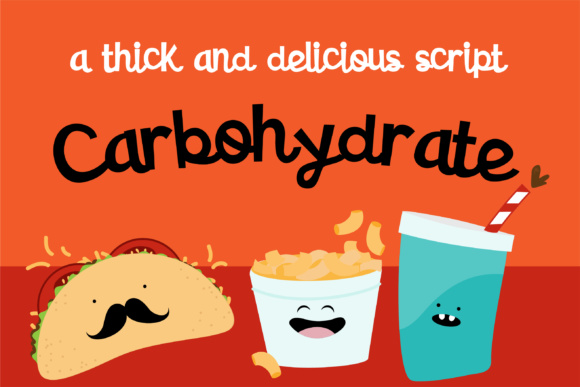
Introducing Carbohydrate Font: A Whimsical Cursive Delight
The world of typography is vast and exciting, with numerous font styles to choose from, each with its unique character and personality. Among these, the Carbohydrate font stands out as a whimsical cursive font that embodies fun and bold quasi-script lettering. In this article, we’ll delve into the details of the Carbohydrate font, exploring its features, uses, and the creative possibilities it offers.
What is Carbohydrate Font?
The Carbohydrate font is a type of cursive font that blends the elegance of traditional script fonts with a playful, modern twist. Its letters are designed to be bold and eye-catching, making it perfect for projects that require a touch of whimsy and personality. The font’s quasi-script style means it doesn’t follow the strict rules of traditional cursive writing, resulting in a more relaxed, friendly appearance.
Key Features of Carbohydrate Font
- Whimsical Design: The Carbohydrate font boasts a unique, hand-drawn design that gives it a personal and approachable feel.
- Bold Lettering: The font features bold, chunky letters that are sure to grab attention.
- Quasi-Script Style: Its quasi-script style strikes a balance between traditional cursive and modern typography.
- Fun and Playful: The overall design of the Carbohydrate font is fun and playful, making it ideal for creative projects.
Uses of Carbohydrate Font
The versatility of the Carbohydrate font makes it suitable for a wide range of applications. Here are some of the ways you can use this delightful font:
- Branding and Logo Design: The bold, eye-catching letters of the Carbohydrate font make it an excellent choice for branding and logo design, especially for businesses that want to convey a sense of fun and creativity.
- Invitations and Event Materials: Whether you’re designing wedding invitations, party flyers, or event posters, the Carbohydrate font can add a touch of whimsy and excitement.
- Packaging Design: The font’s playful design makes it perfect for product packaging, particularly for brands that offer lifestyle, fashion, or gourmet products.
- Digital Media: Use the Carbohydrate font in social media graphics, blog headers, and website designs to create a friendly and approachable online presence.
Tips for Using Carbohydrate Font Effectively
To get the most out of the Carbohydrate font, consider the following tips:
- Pair with Simple Fonts: For optimal readability, pair the Carbohydrate font with simpler fonts for body text or secondary headings.
- Use in Moderation: While the Carbohydrate font is eye-catching, using it in moderation can prevent your design from looking cluttered or overwhelming.
- Experiment with Colors: Don’t be afraid to experiment with different colors to find the perfect match for your design and brand identity.
- Consider Font Size: The bold nature of the Carbohydrate font means it can be effective at larger sizes, but ensure it’s legible in the context of your project.
The Impact of Carbohydrate Font on Design
The Carbohydrate font can significantly impact your design, adding a unique personality and aesthetic that sets it apart from more traditional fonts. Its whimsical nature can:
- Enhance Brand Identity: For brands looking to project a fun, youthful image, the Carbohydrate font can be a valuable asset.
- Increase Engagement: The playful design of the font can capture the audience’s attention, increasing engagement with your content or product.
- Add Creativity: Incorporating the Carbohydrate font into your design can add a creative touch, making your project more memorable.
The Carbohydrate font is a versatile and engaging typeface that can add a fun and bold element to any design project. Its whimsical cursive style, combined with bold quasi-script lettering, makes it perfect for a wide range of applications, from branding and packaging to digital media. By understanding its features and using it effectively, designers can leverage the Carbohydrate font to create eye-catching, memorable designs that stand out in a crowded visual landscape.
FAQs About Carbohydrate Font
- Q: What type of projects is the Carbohydrate font best suited for?
- A: The Carbohydrate font is ideal for projects that require a fun, playful touch, such as branding, invitations, packaging design, and digital media.
- Q: How can I make the Carbohydrate font more readable?
- A: To improve readability, consider pairing the Carbohydrate font with simpler fonts for body text, and use it in moderation to avoid visual clutter.